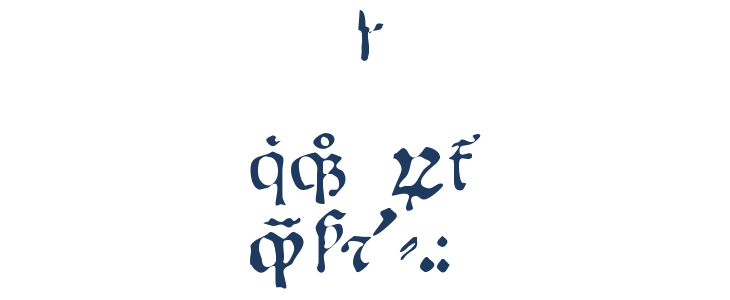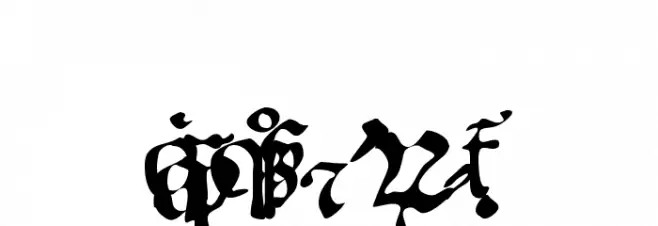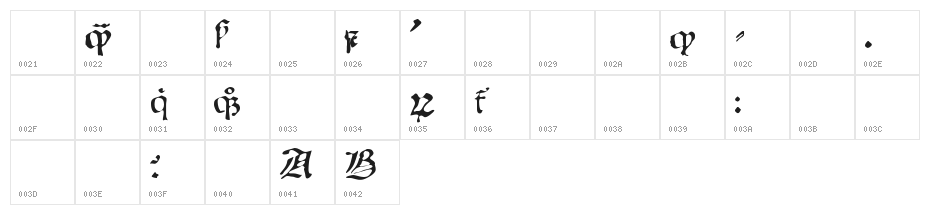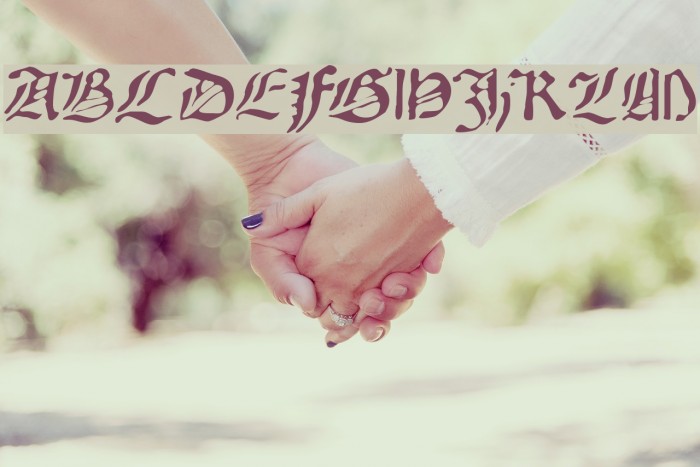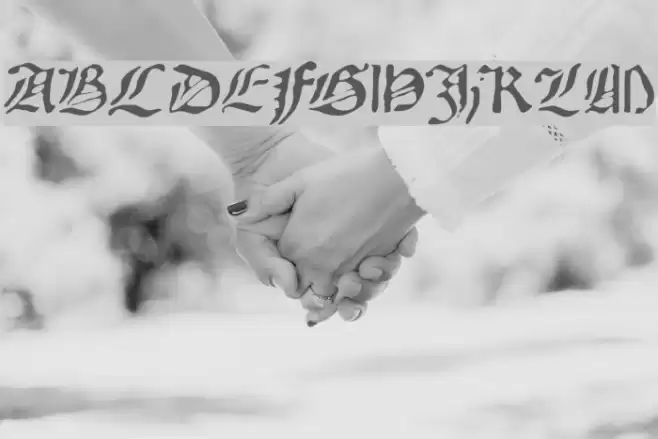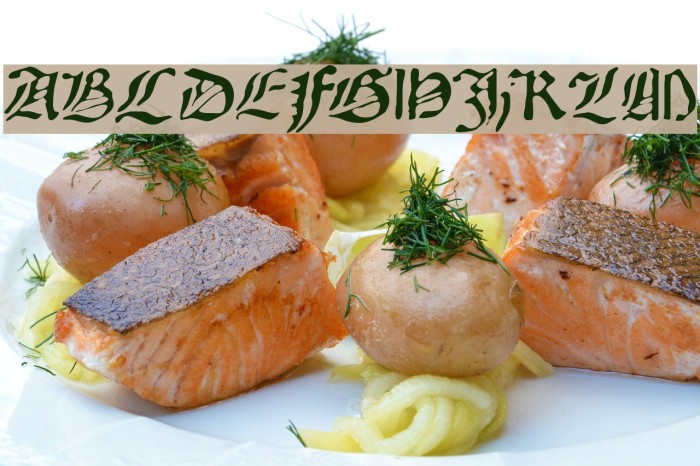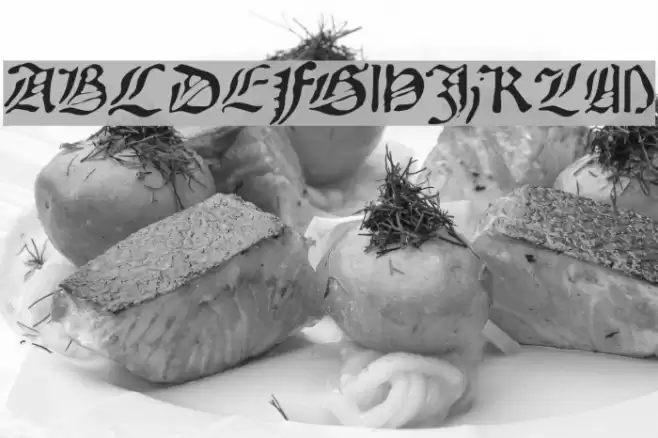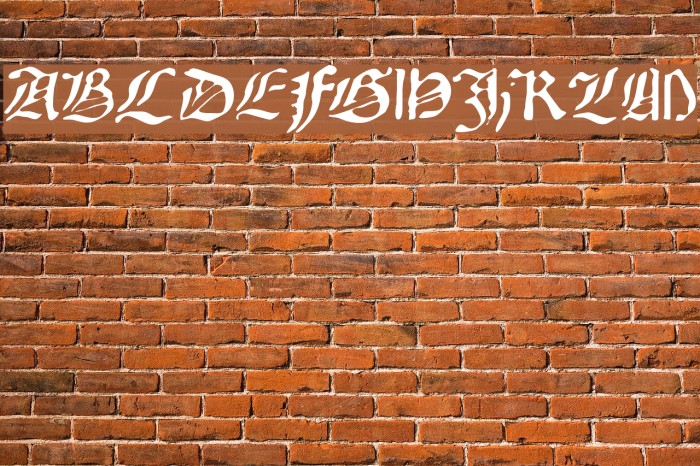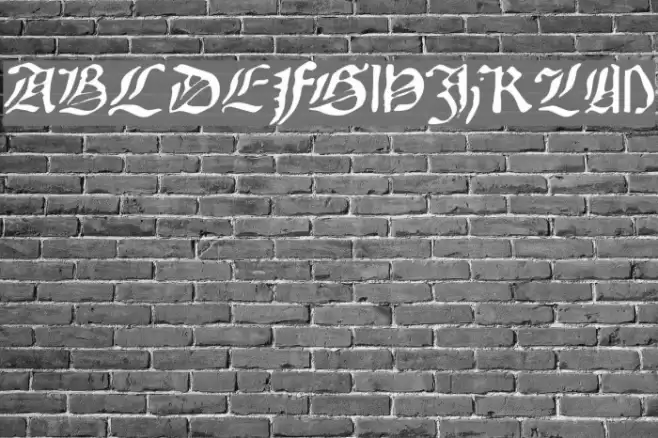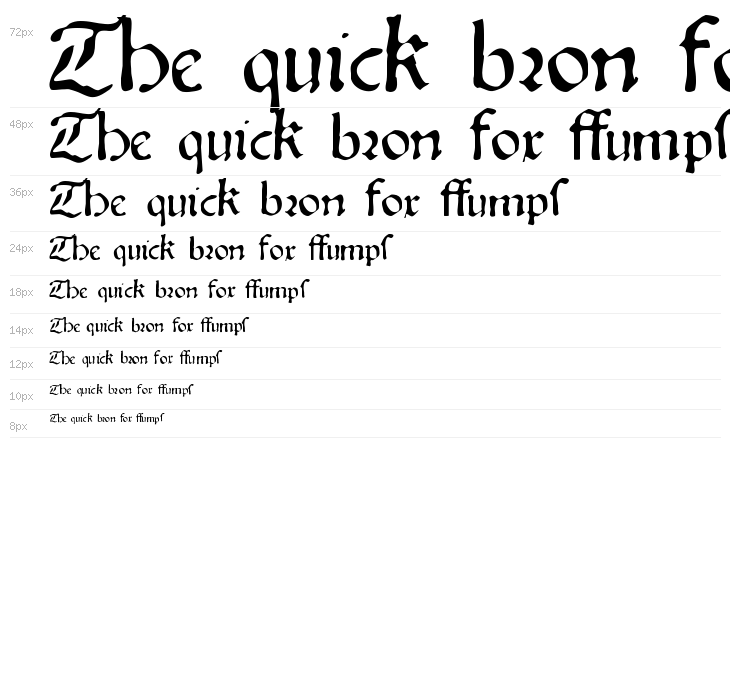
Oldprint Font
Oldprint Description
This font features a classic blackletter style, reminiscent of traditional Gothic script. The characters are ornate and intricate, with sharp angles and dramatic flourishes that give it a medieval appearance. The uppercase letters are particularly elaborate, with sweeping lines and pointed serifs, while the lowercase letters maintain a consistent style with slightly less embellishment. The numbers and special characters follow the same decorative theme, ensuring a cohesive look across all elements. This font is ideal for projects that require a historical or formal touch, such as invitations, certificates, or branding for luxury products.
| Use Case | Headlines, Logos, Decorative text |
| Proposed Projects | Ideal for historical documents, formal invitations, luxury branding, and certificates. |